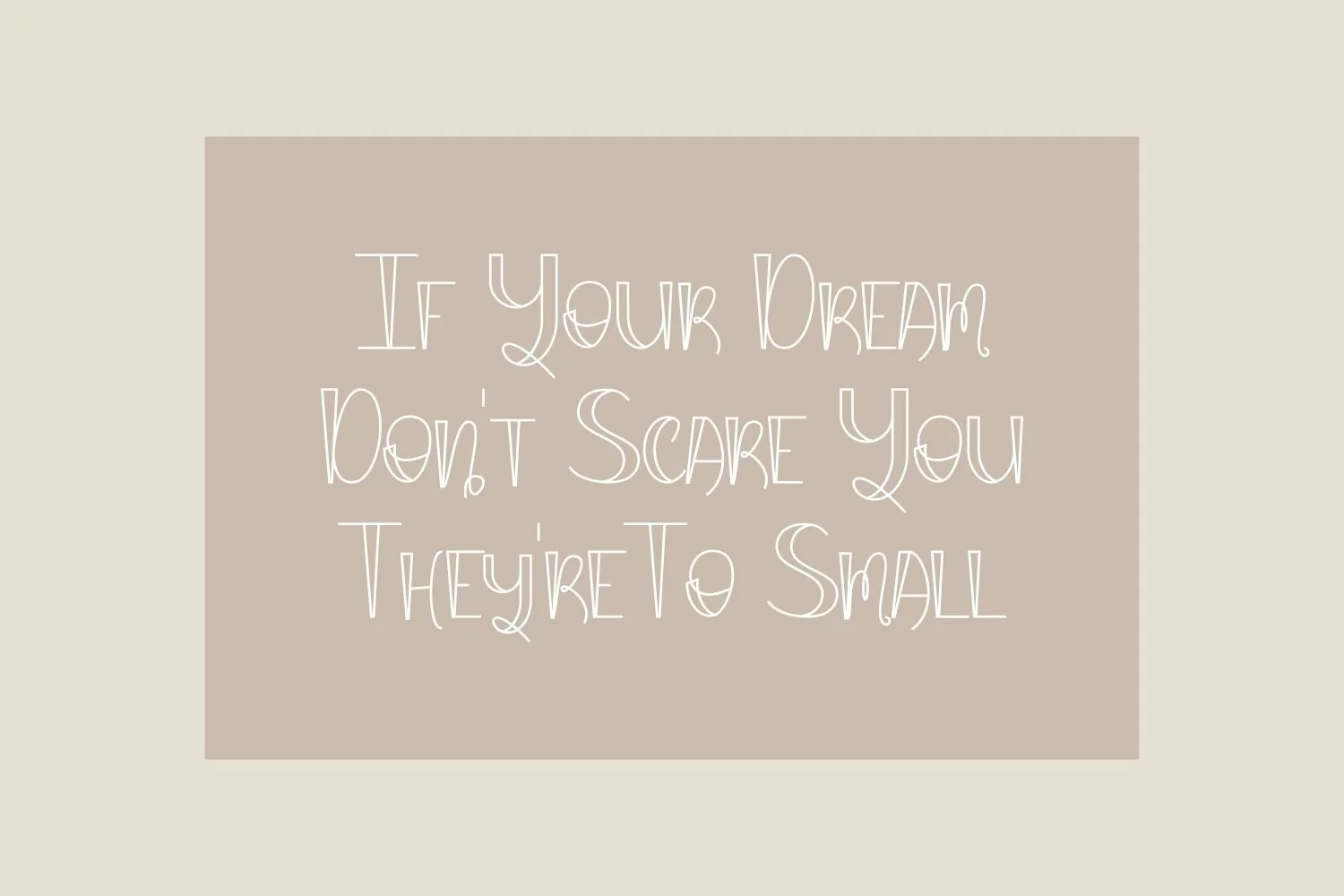
Ashalena is san serif display come with modern themes. We wanted to create the most soft and clean. It matches applies in some designs such as the logotype, brand, packaging, quotes, poster, shirt, cover book, wedding invitation and more custom design. The features uppercase, lowercase, numeral, punctuation & symbol, multilingual support, PUA encoded (fully accessible without additional design software).